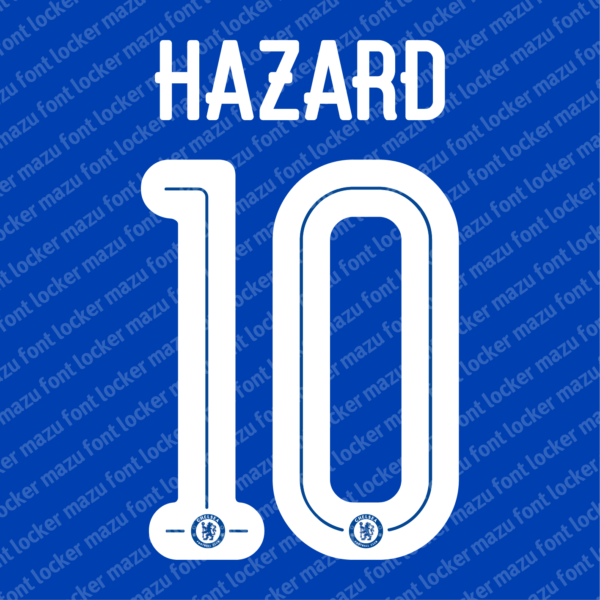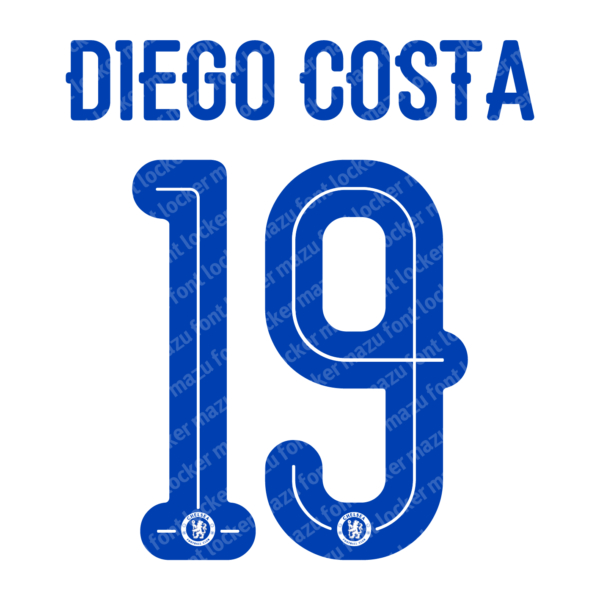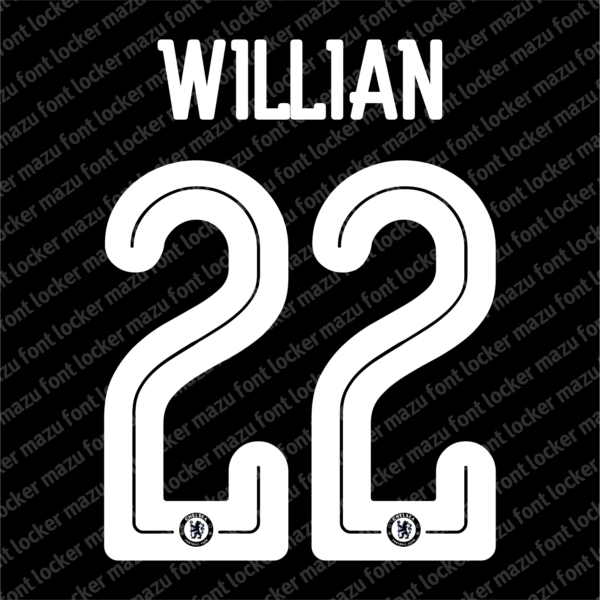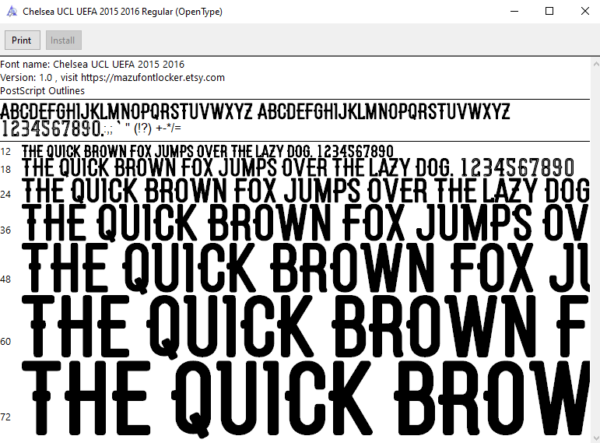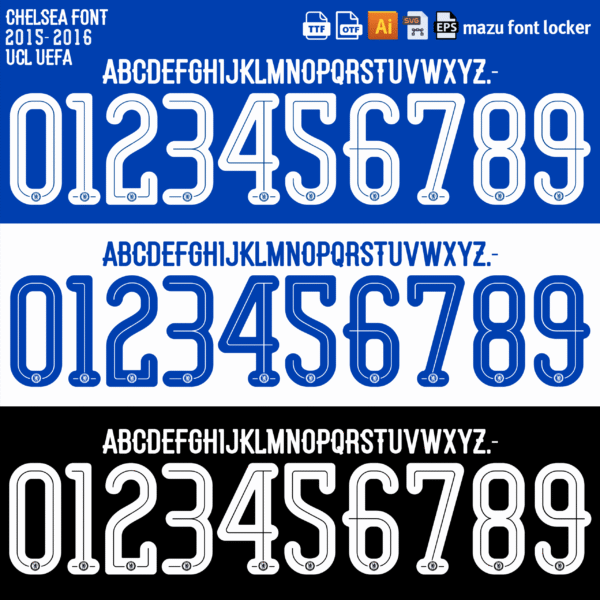
Chelsea 2015-2016 Font Vector – Legendary Blue Lion Masterpiece
Channeling the proud Chelsea spirit of the Mourinho era, it features the powerful style worn by legends like Eden Hazard, Diego Costa, John Terry, and Thibaut Courtois. Perfect for retro jersey mockups, football designs, and nostalgic Chelsea art.
Chelsea 2015-2016 Font Vector – Classic Blue Typeface
The Chelsea 2015-2016 Font Vector is a premium typeface that faithfully recreates the iconic lettering from Chelsea FC’s 2015-2016 season kit. This vector font kit captures the bold, clean, and timeless typography that defined one of the most memorable seasons in the club’s modern history.
This font set is highly regarded for its accuracy and attention to detail. Every letter and number has been meticulously recreated to match the official typography used on Chelsea’s 2015-2016 home and away kits.
The letterforms are bold, slightly condensed, and feature a strong sans-serif presence with sharp edges — delivering the classic Premier League aesthetic of that era while maintaining excellent readability.
The numerals boast athletic proportions, clean contours, and balanced weight, perfect for replicating player names and squad numbers on both home and away kits from the 2015-2016 season.
• Full uppercase A–Z and numbers 0–9 in the official 2015-2016 style
• Special Chelsea FC crest glyph for authentic detailing
• Multilingual Latin support with diacritics
• Includes precise crest placement used under player numbers
Chelsea 2015-2016 Season
The 2015–2016 season was a historic campaign for Chelsea Football Club. Under manager José Mourinho, the Blues wore a classic home kit that has since become a fan favourite. This font kit pays tribute to that iconic season and the legendary players who wore the famous blue jersey.
Inspired by the design and spirit of Chelsea’s memorable era, this font captures the identity, pride, and tradition of one of England’s most successful clubs. It reflects the passion shown on the pitch at Stamford Bridge and honours the players who represented the club with determination and excellence. For Chelsea supporters and football enthusiasts alike, this font serves as a tribute to the club’s enduring legacy, unforgettable moments, and the winning mentality that continues to define the Blues around the world. For official updates and more about the club, visit the official Chelsea FC website.